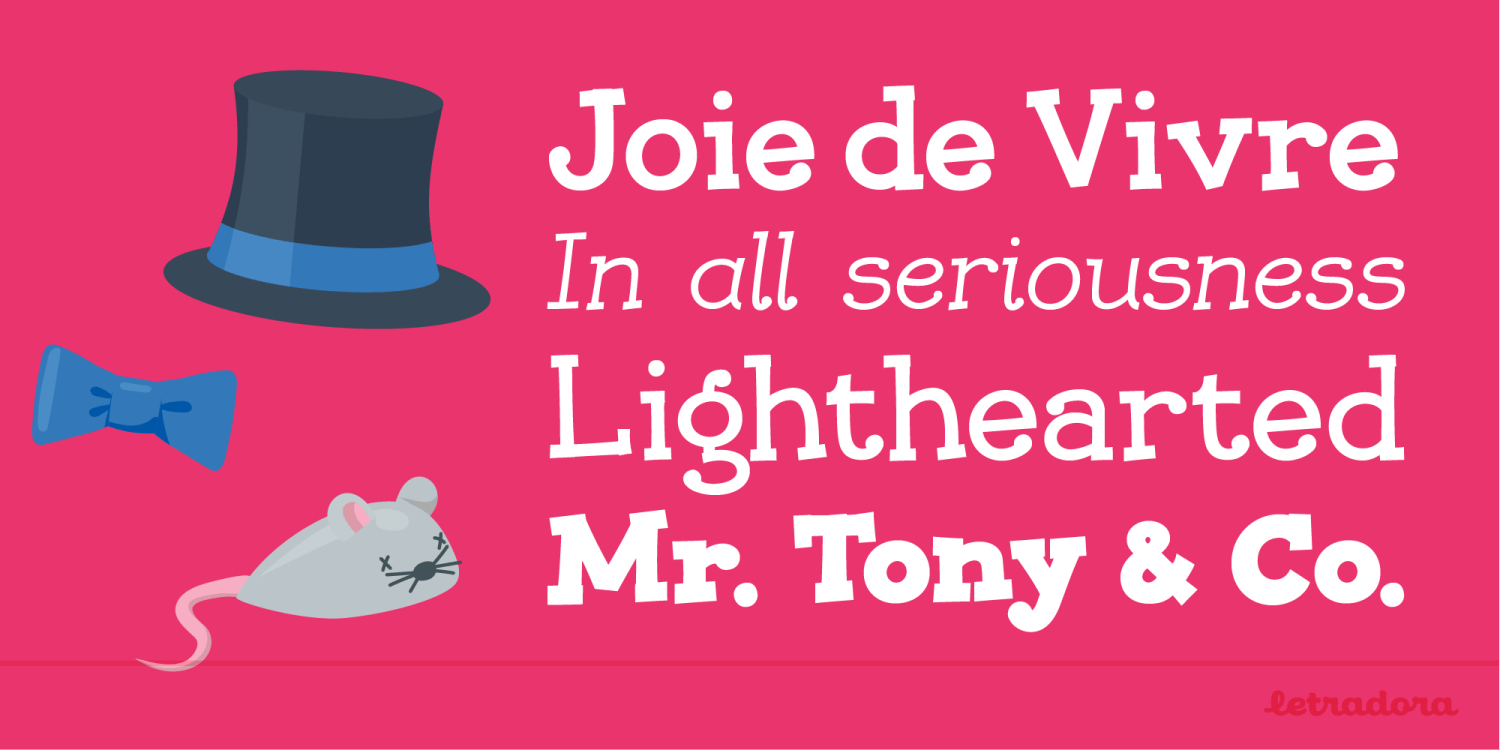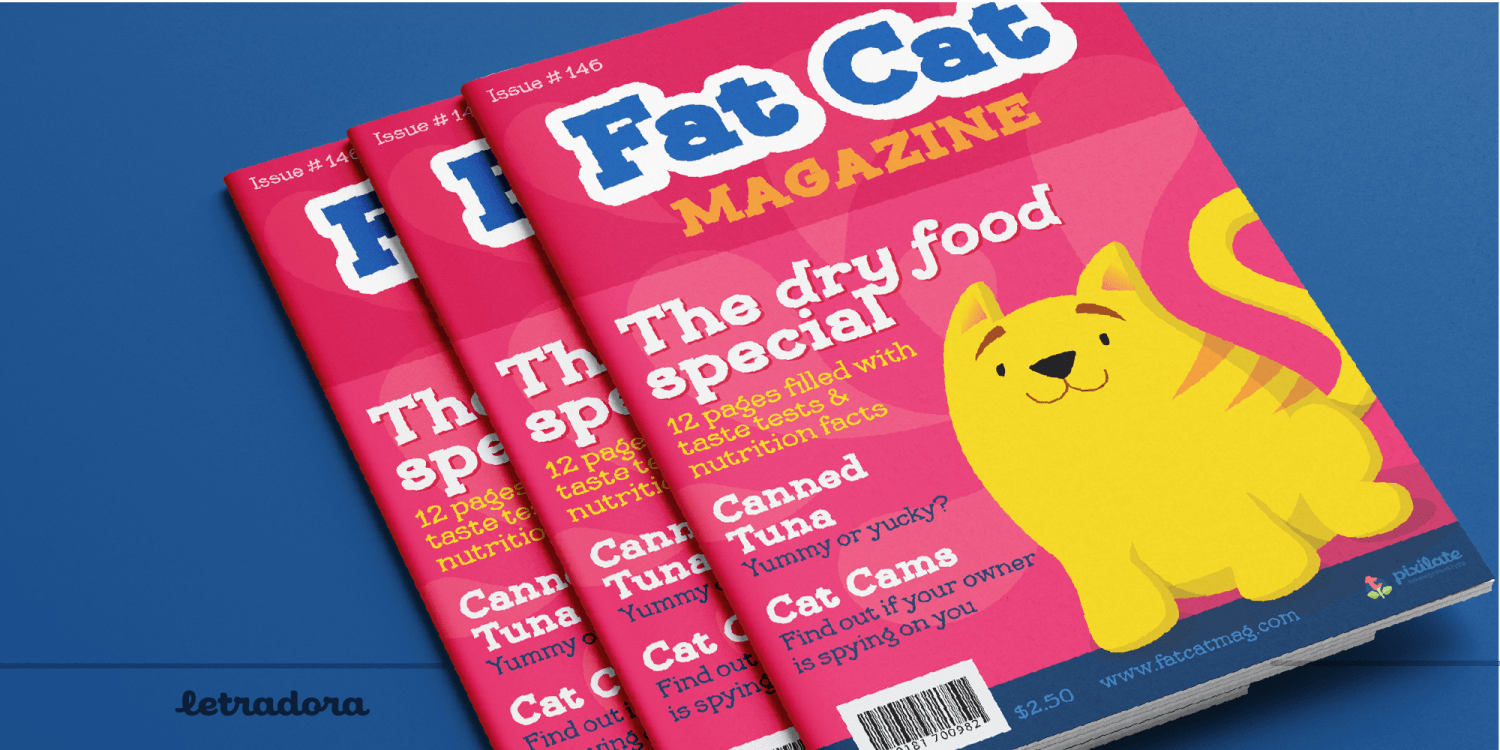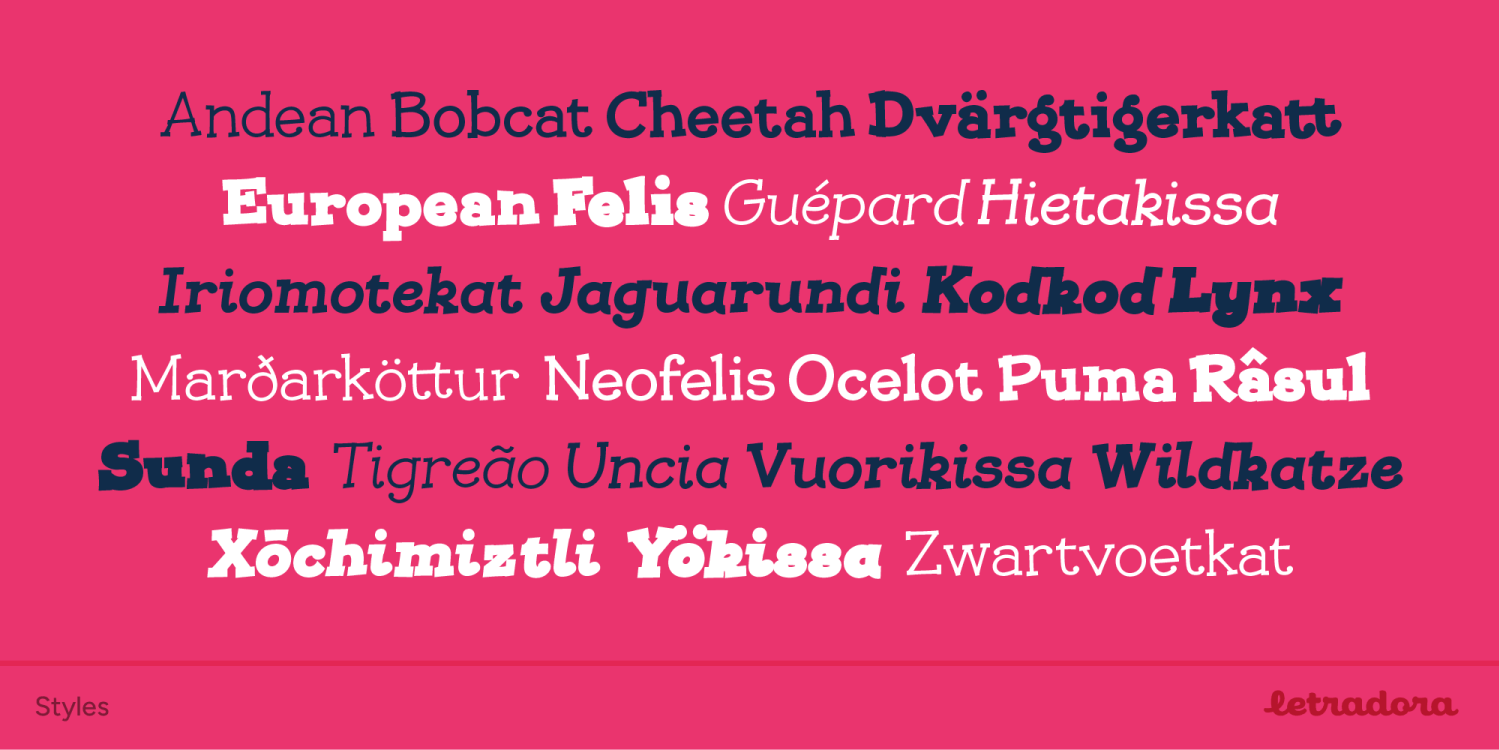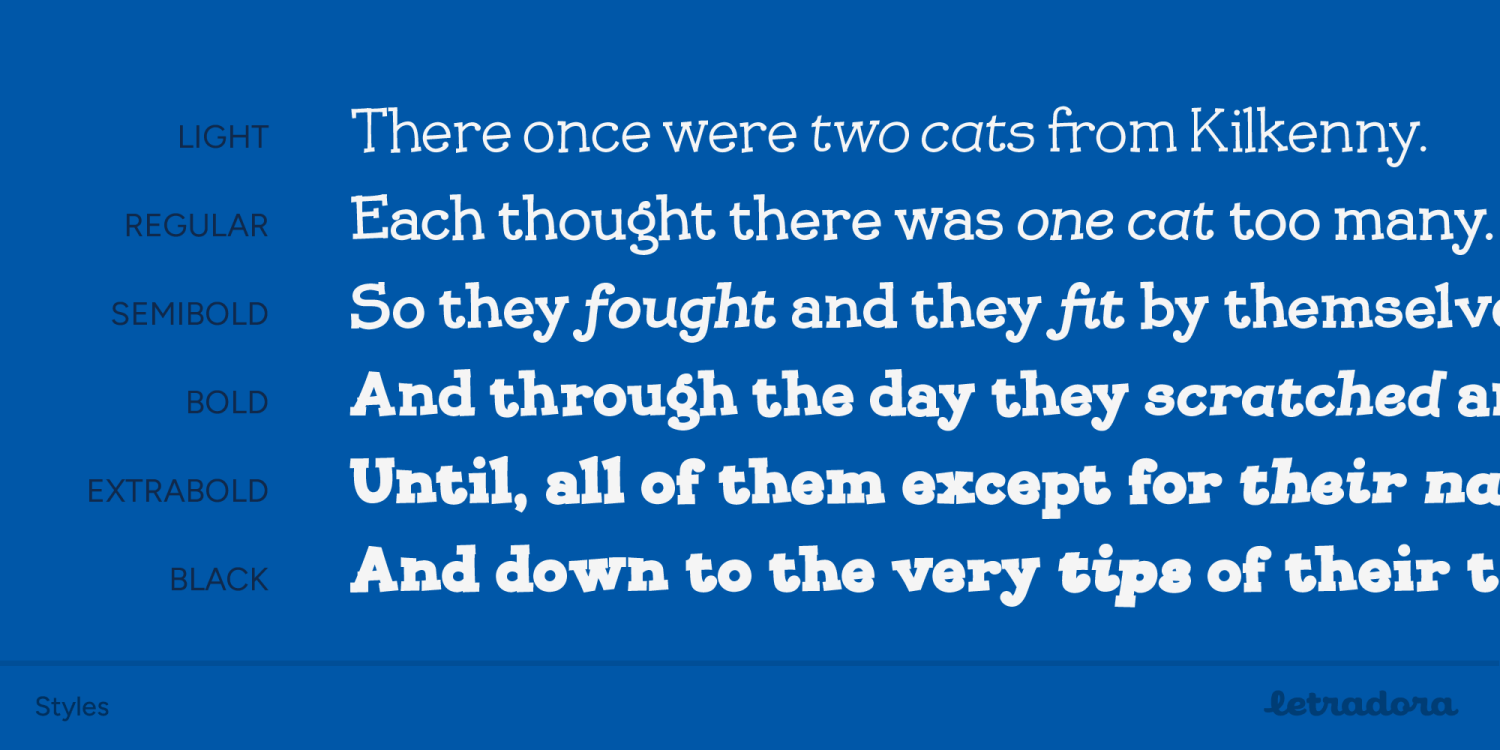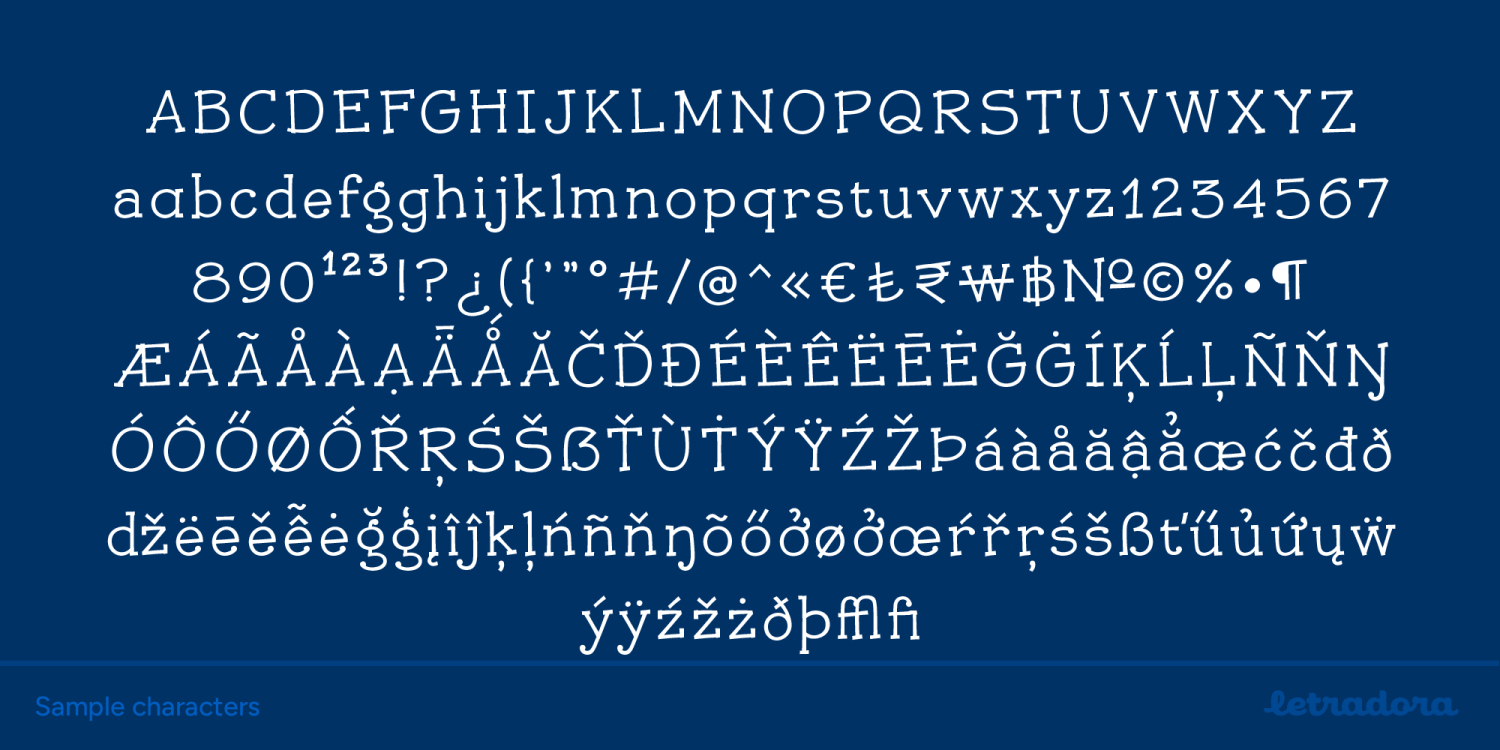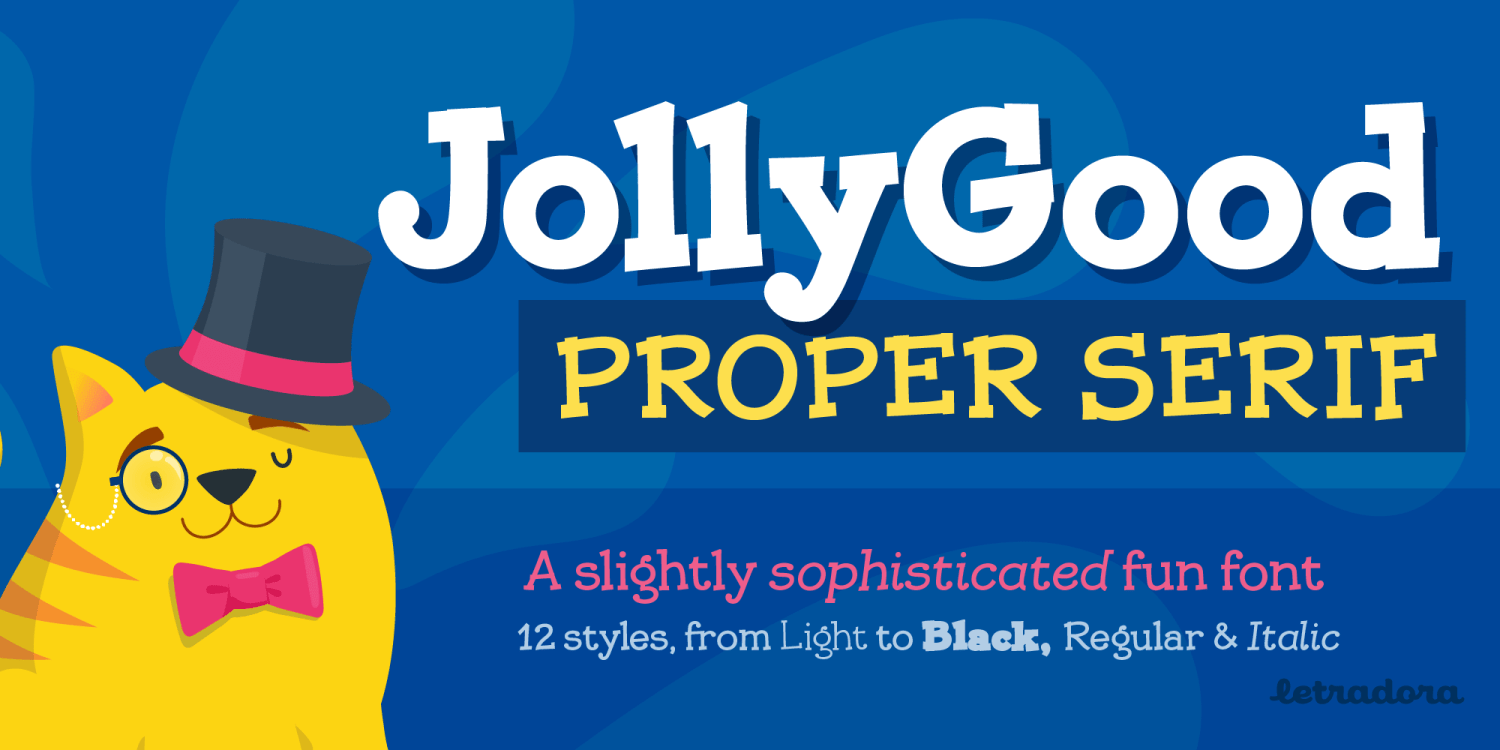
What do you get if you mix a proper serif typeface with cartoony fun? JollyGood Proper Serif! A whimsical font legible enough to work in longer texts, it’s perfect for childrens’ books and magazines. It is a complete family with 6…